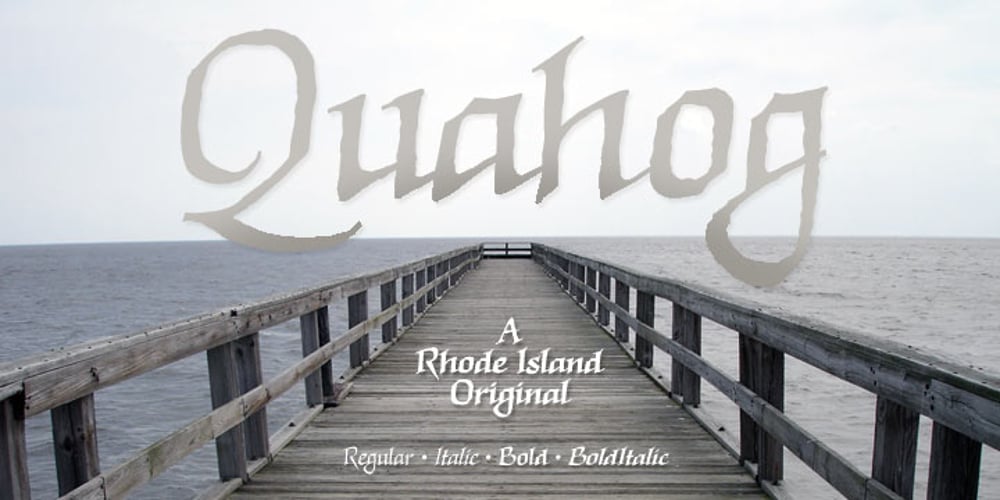
Quahog BB
Quahog BB Font Family was designed by Nate Piekos and published by Blambot. Quahog BB contains 10 styles and family package options. QUAHOG BB is a Rhode Island original, inspired by classic American Italic designs. The font family comes with Regular, Italic, Bold and BoldItalic. The opentype version has auto-ligatures for fl, ff, fi, ft, st.